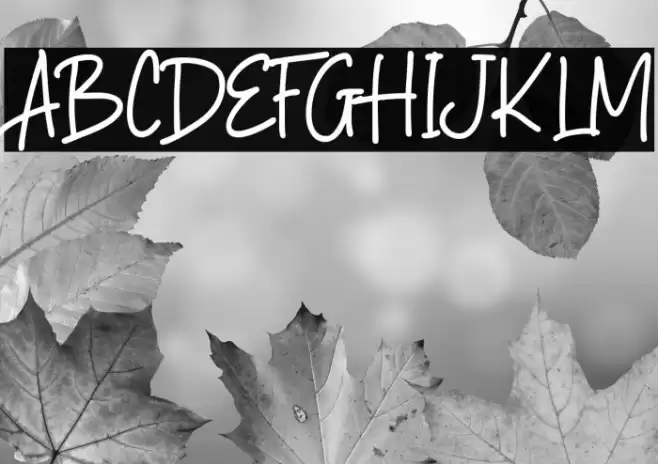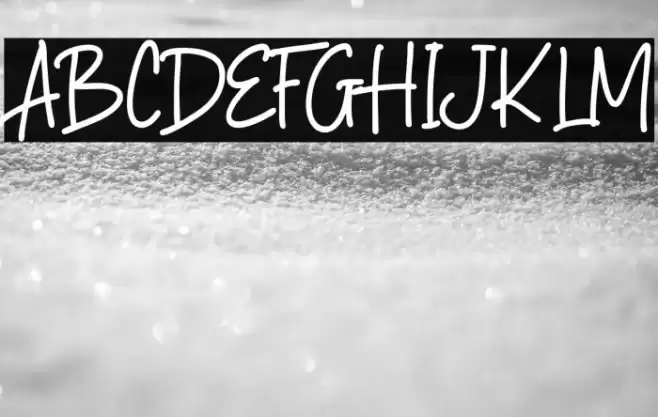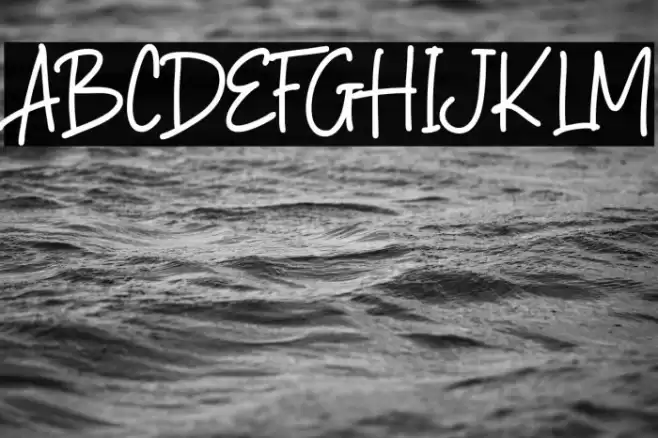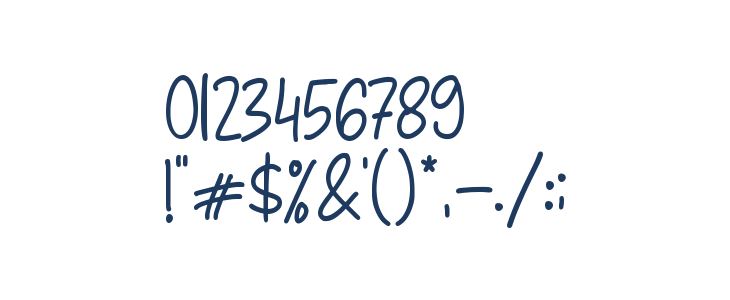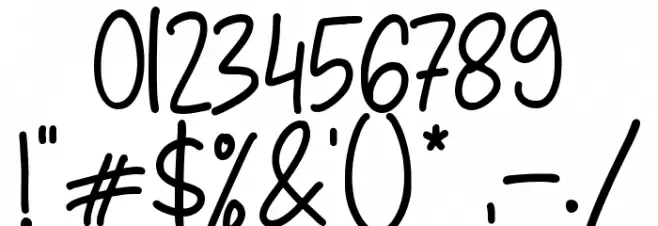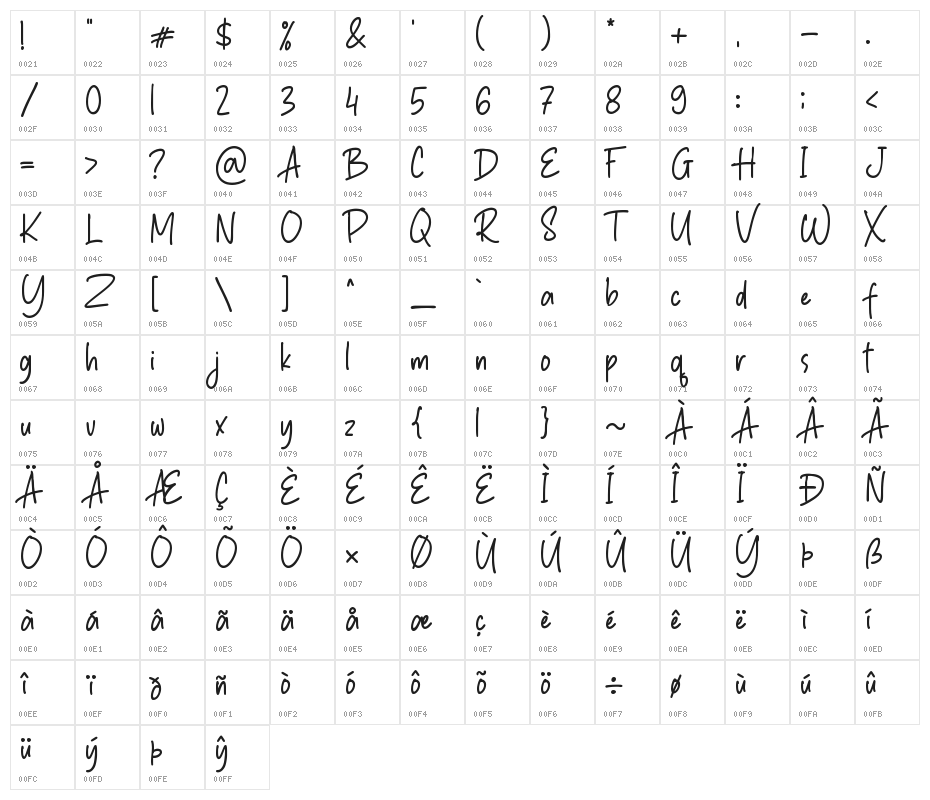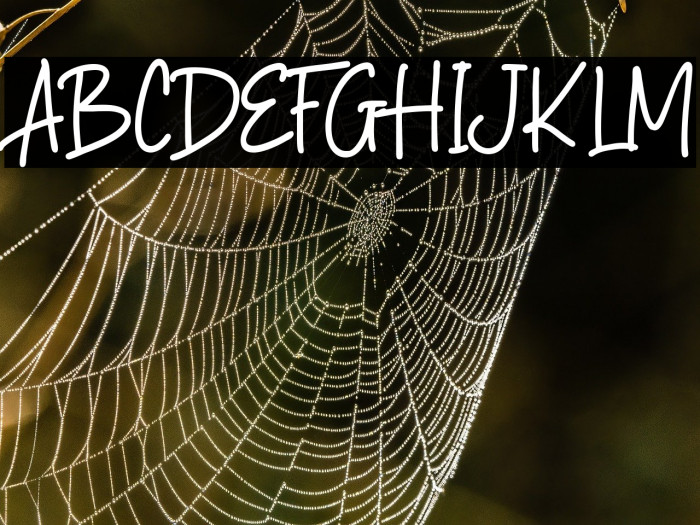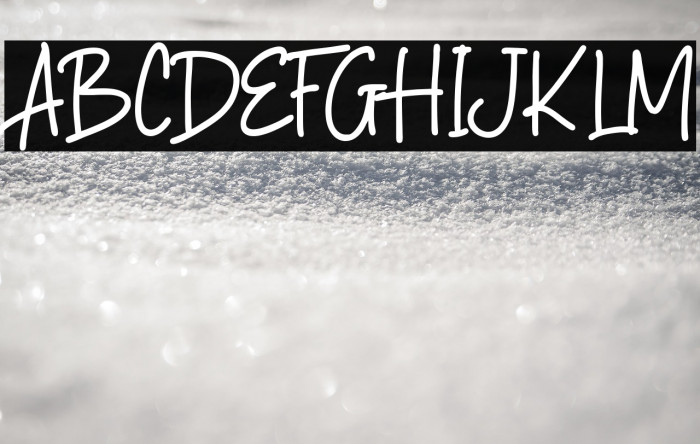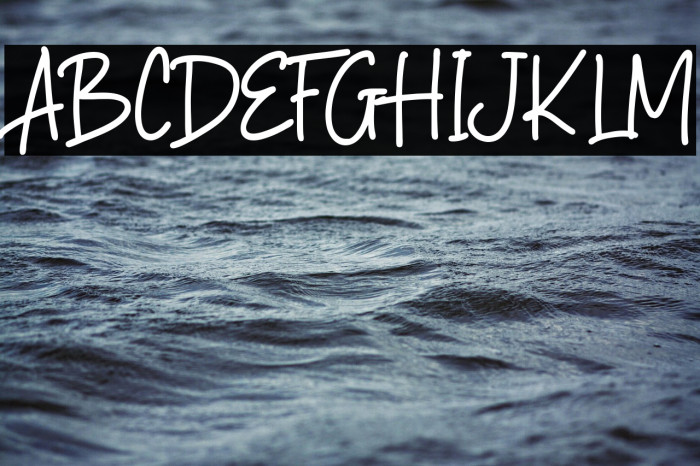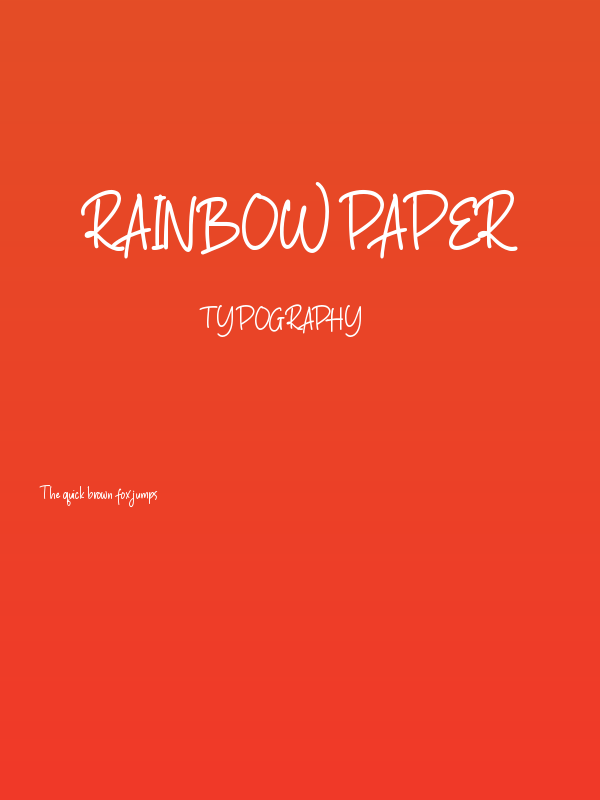
Rainbow Paper Font
Rainbow Paper Description
This font features a playful and casual handwritten style, characterized by its smooth, flowing lines and slightly irregular shapes. The uppercase letters are tall and narrow, with a slight slant that adds to the informal feel. The lowercase letters maintain a consistent style, complementing the uppercase with rounded forms and a natural, organic appearance. Numbers are bold and clear, ensuring readability. Special characters are creatively designed, fitting seamlessly with the overall aesthetic. The font's unique charm makes it suitable for projects that require a personal touch.
A playful, casual handwritten font with smooth, flowing lines from Uncategorized fonts.
- Font: Rainbow Paper
- Proposed Projects: Ideal for greeting cards, invitations, personal branding, and creative projects that benefit from a personal, informal touch.
- Overall Style: Casual, Playful
- Use Case: Headlines, Logos, Informal Text